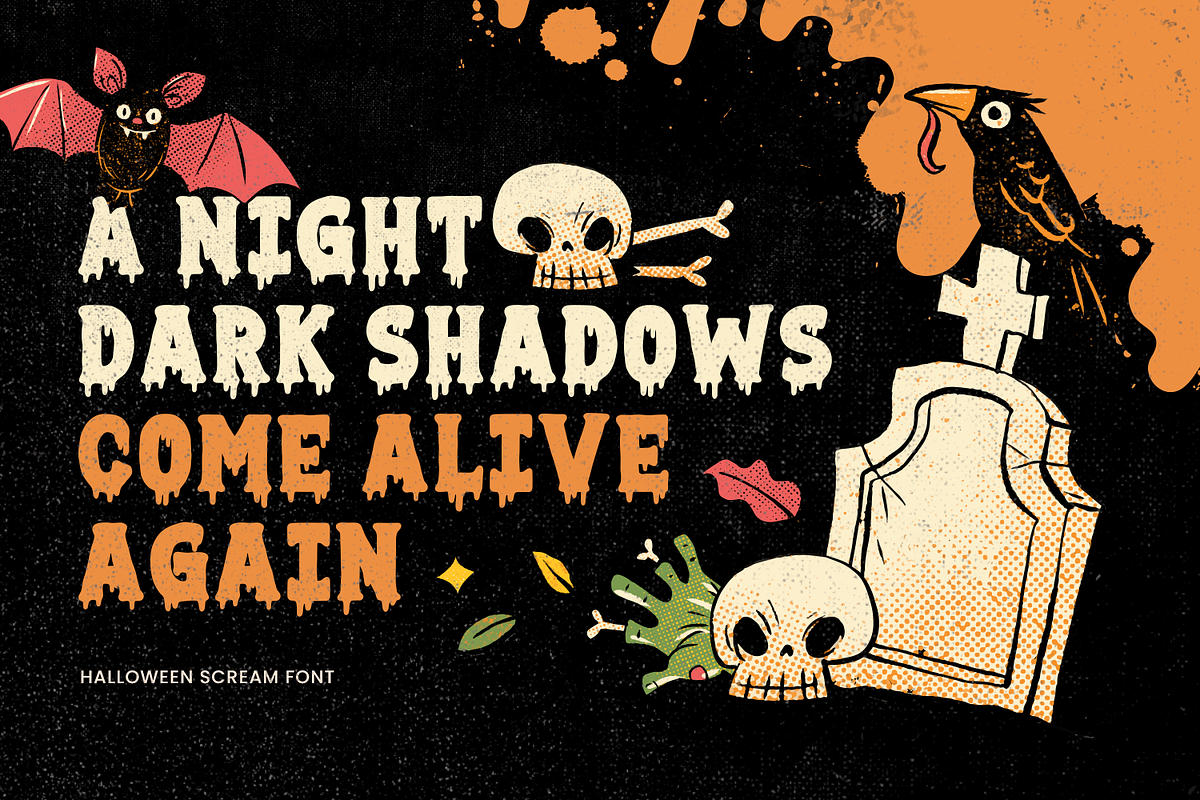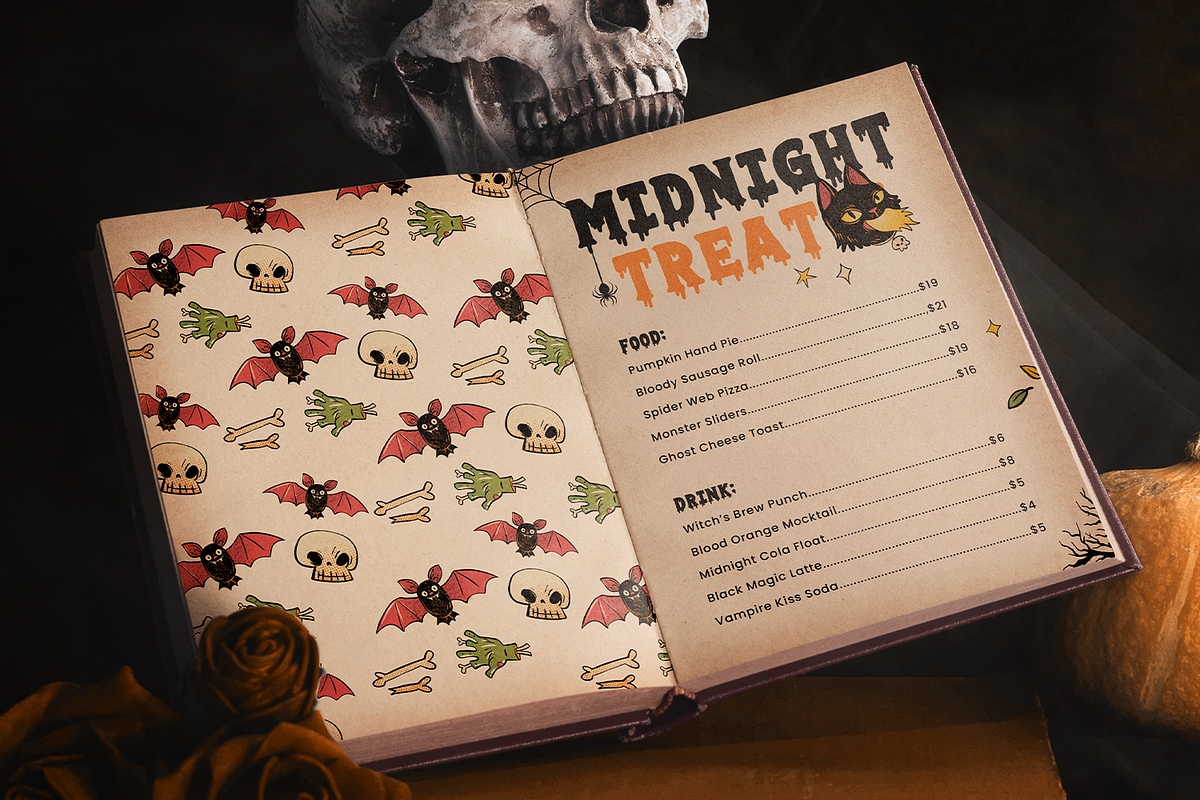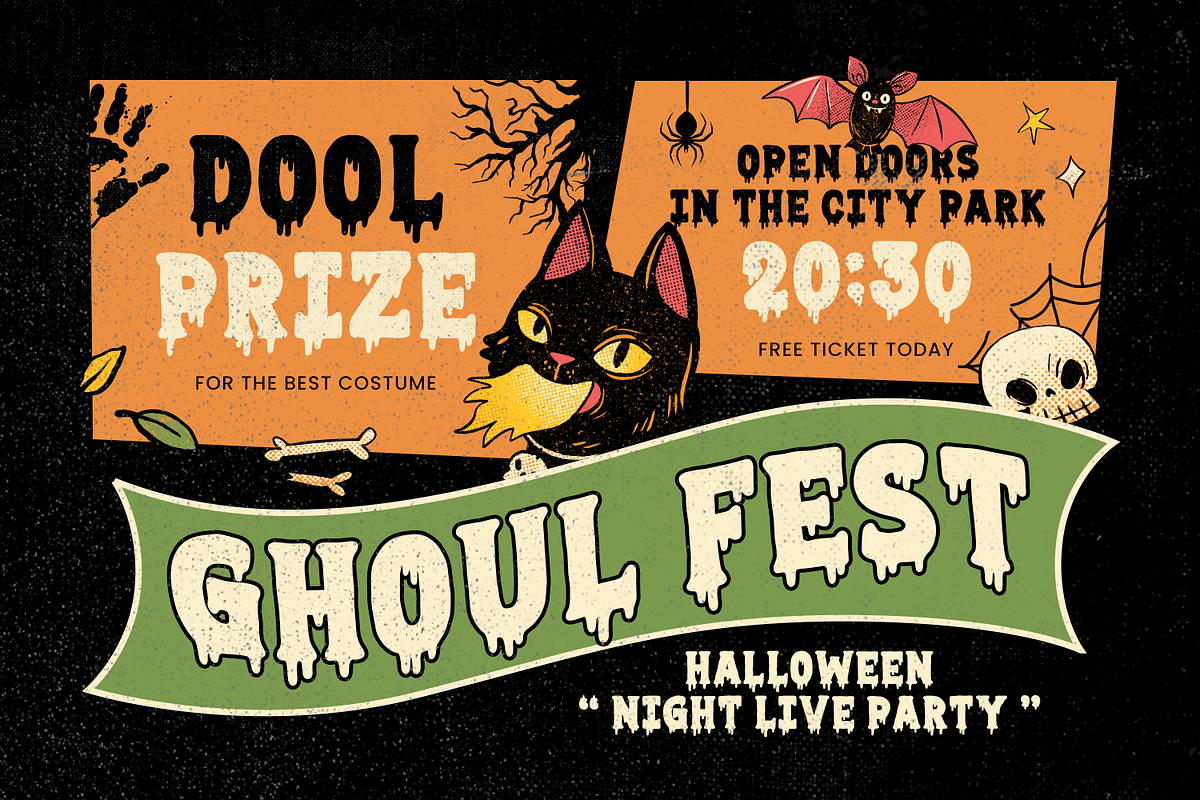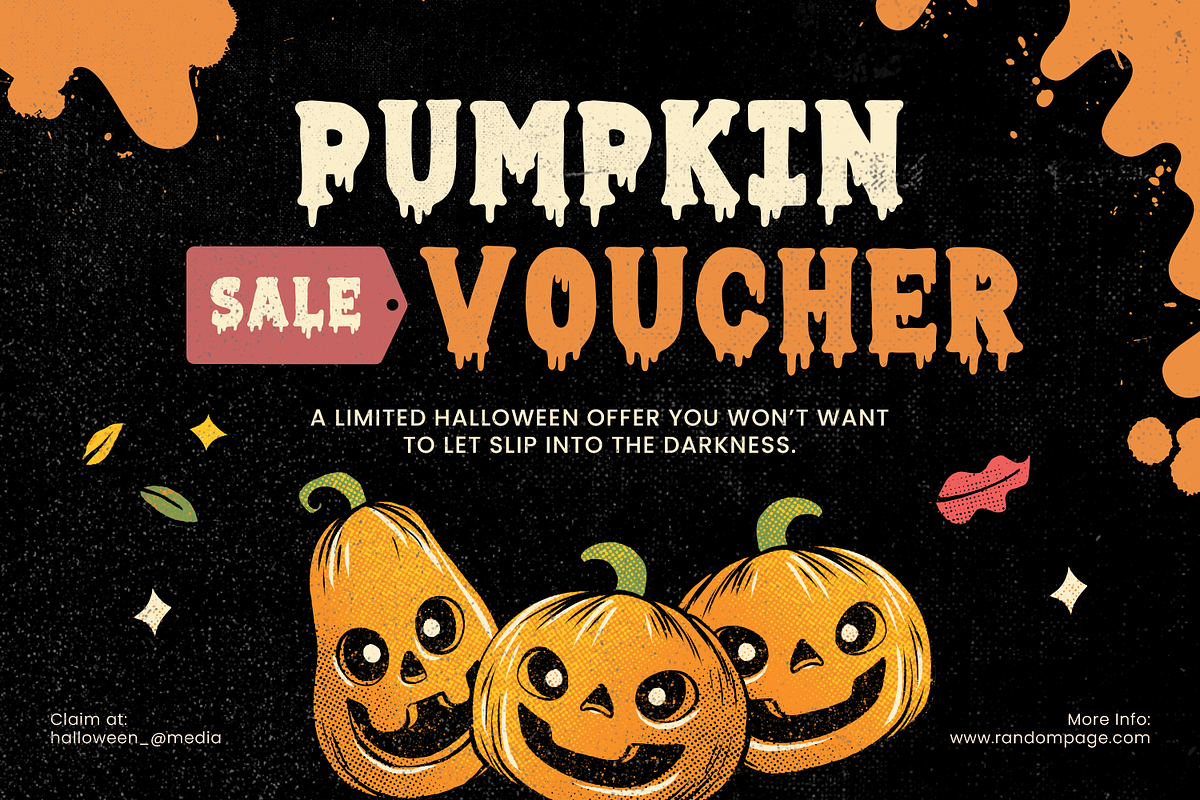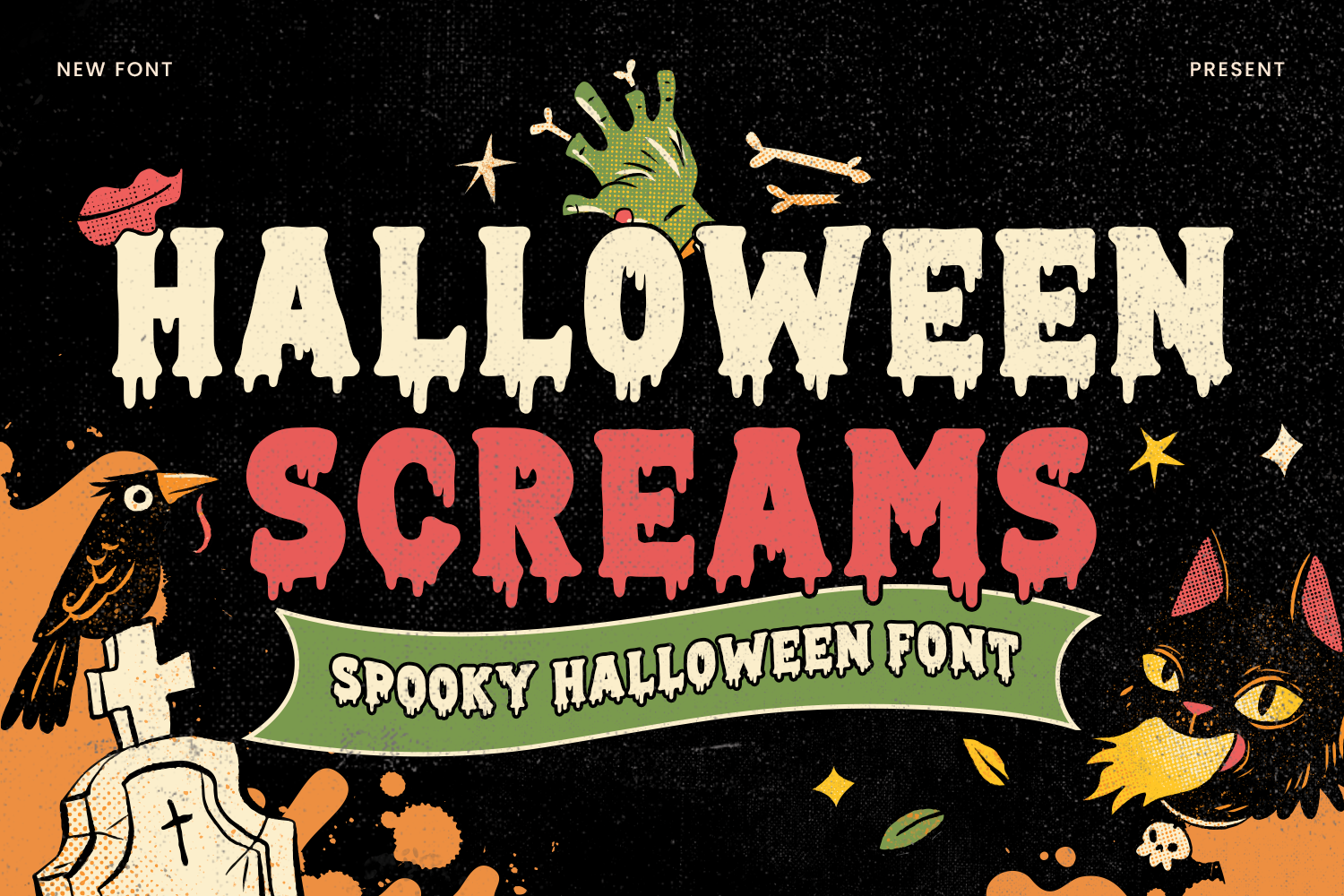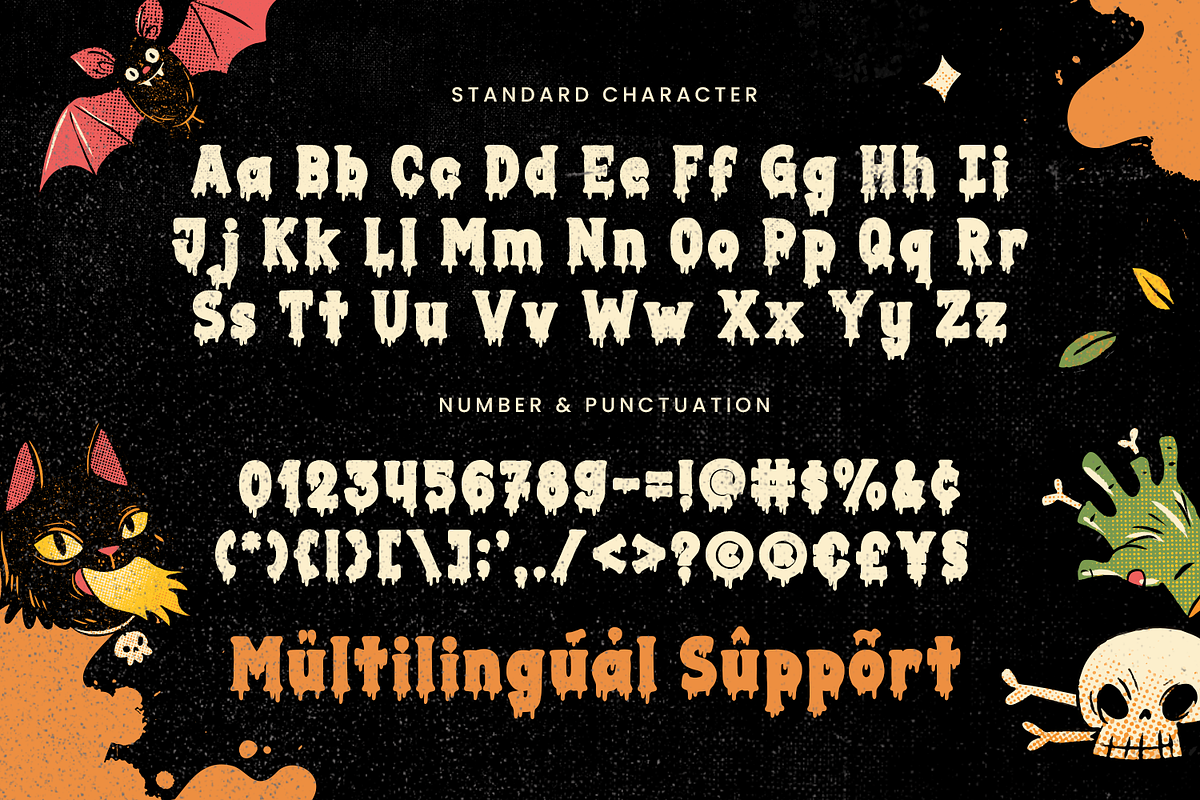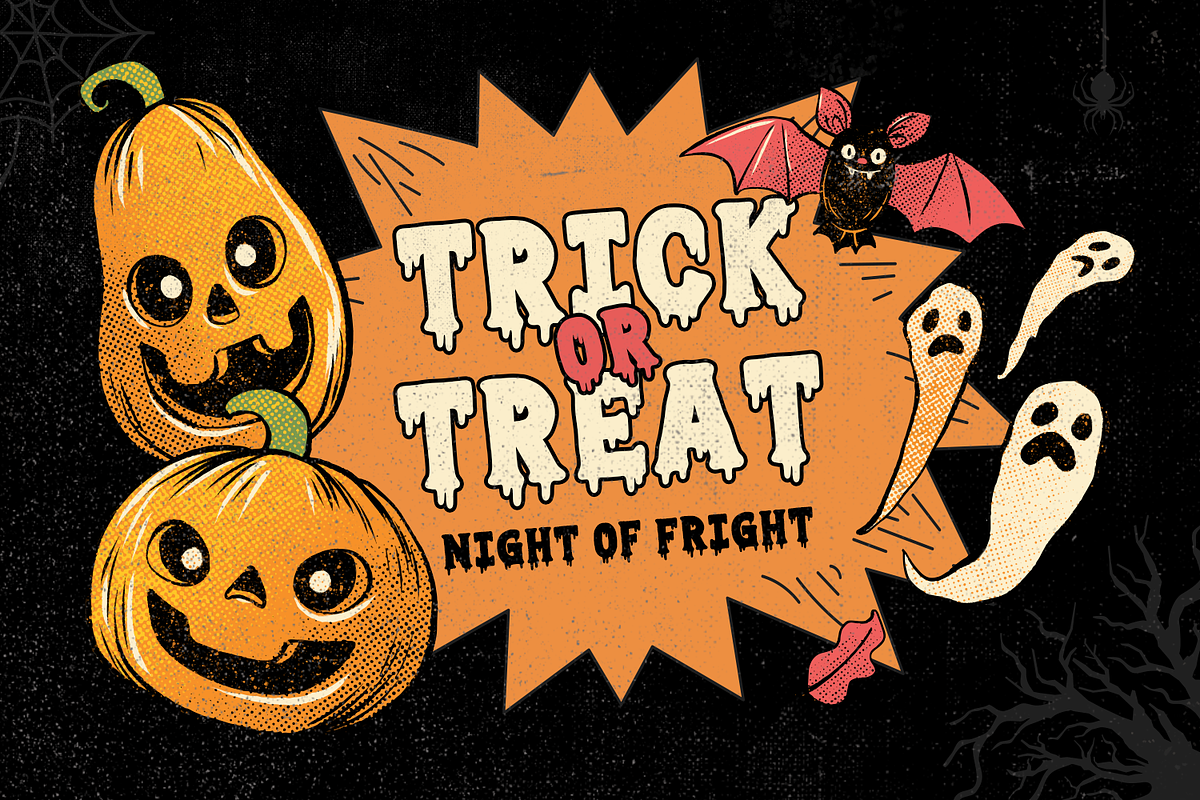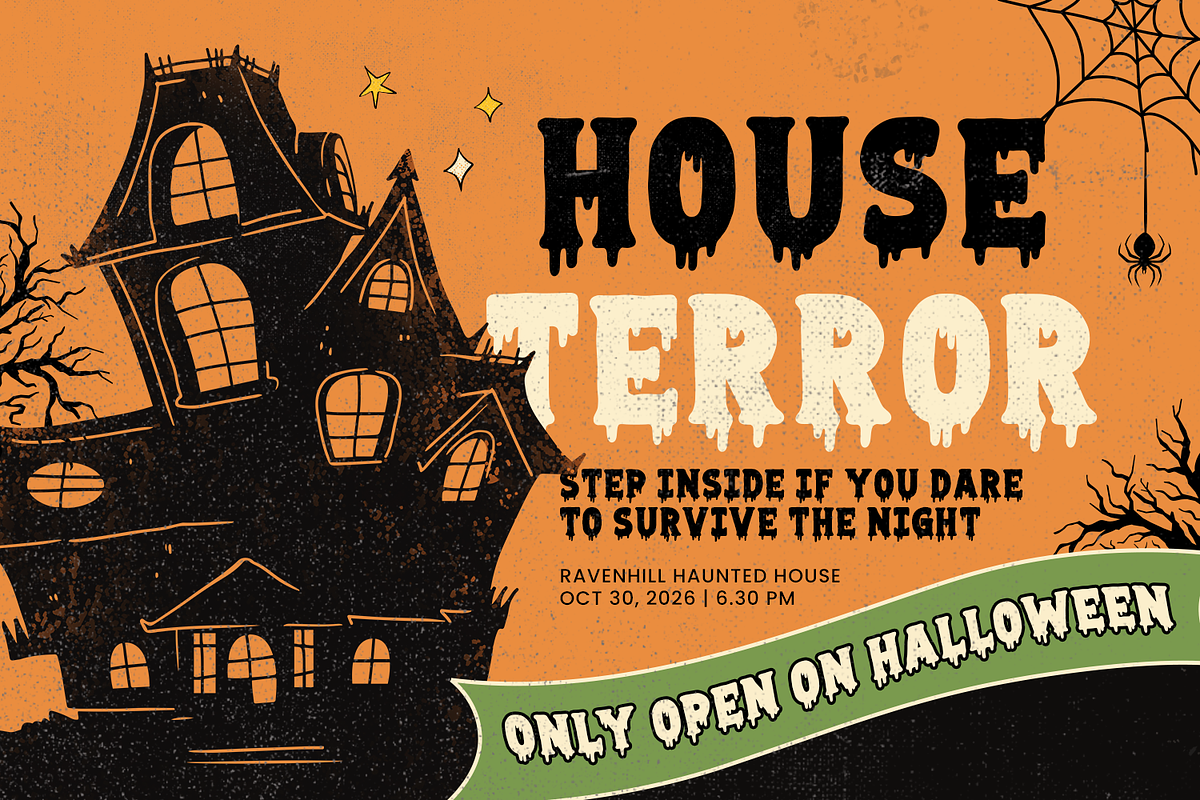
Halloween Screams - Halloween Font
# Halloween Screams – Horror Halloween Font
Halloween Screams is a chilling horror display font inspired by terrifying screams, haunted nights, and the spine-tingling atmosphere of Halloween. Its sharp edges, distorted shapes, and eerie details create an intense visual style that instantly captures attention.
Designed with bold and dramatic letterforms, Halloween Screams brings a powerful horror aesthetic to posters, banners, haunted house signage, party flyers, and spooky event promotions. Its distinctive shapes maintain strong readability while delivering an unsettling and frightening character.
Halloween Screams is also versatile for seasonal and creative projects beyond Halloween. It works beautifully for Halloween invitations, dark autumn designs, fall crafts, stickers, mugs, posters, Cricut projects, SVG designs, and expressive lettering projects that require a scary and dramatic touch.
## Key Features of Halloween Screams
• Bold horror-inspired display style
• Sharp, distorted, and eerie letterforms
• Strong visual impact for headlines and titles
• Suitable for Halloween and dark-themed designs
• Standard and multilingual glyphs
## Perfect For
• Halloween Posters & Banners
• Haunted House Signage
• Halloween Invitations
• Spooky Party Flyers
• Horror-Themed Event Promotions
• Dark Autumn & Fall Designs
• Stickers & Labels
• Mugs & Creative Gifts
• SVG & Cricut Projects
• Silhouette & Cutting Machine Projects
• DIY Crafts
• Expressive Horror Lettering
Halloween Screams combines bold display lettering with a dark, distorted aesthetic to create an instantly recognizable horror style. Whether used for Halloween promotions, spooky invitations, seasonal crafts, or expressive creative projects, its dramatic letterforms help every design feel darker, scarier, and more atmospheric.